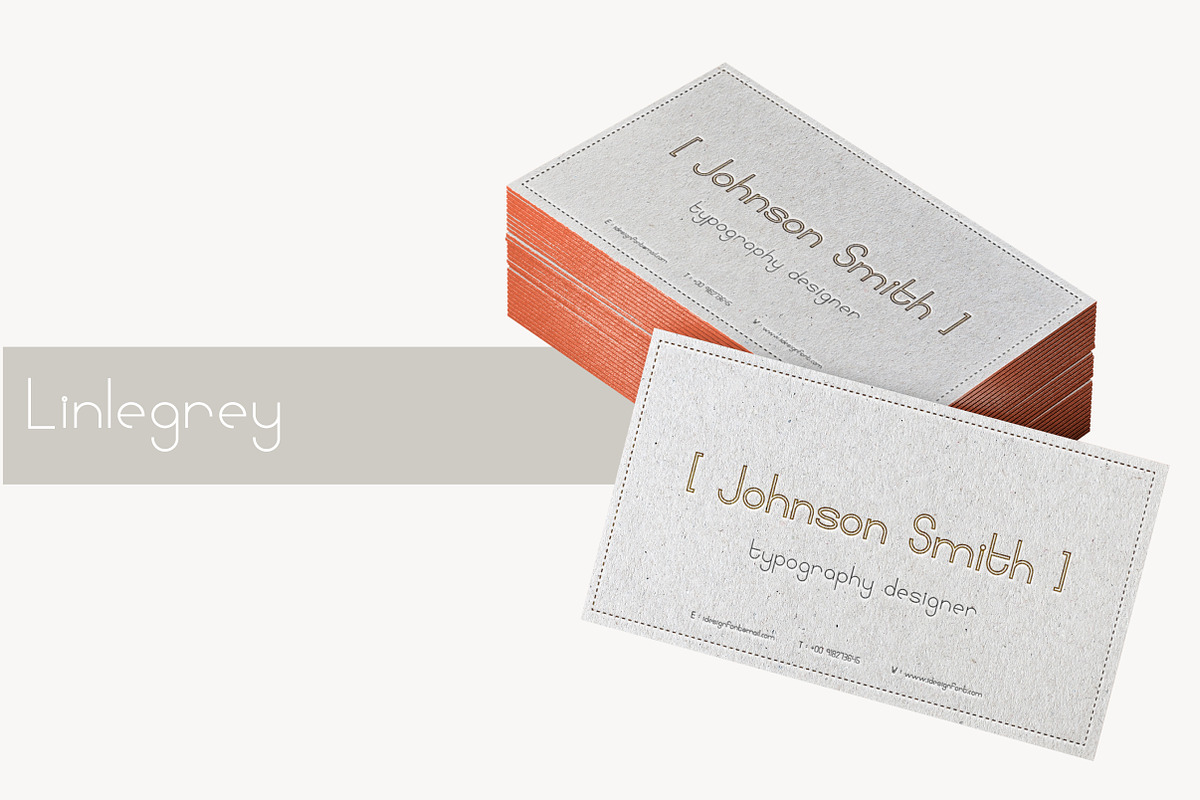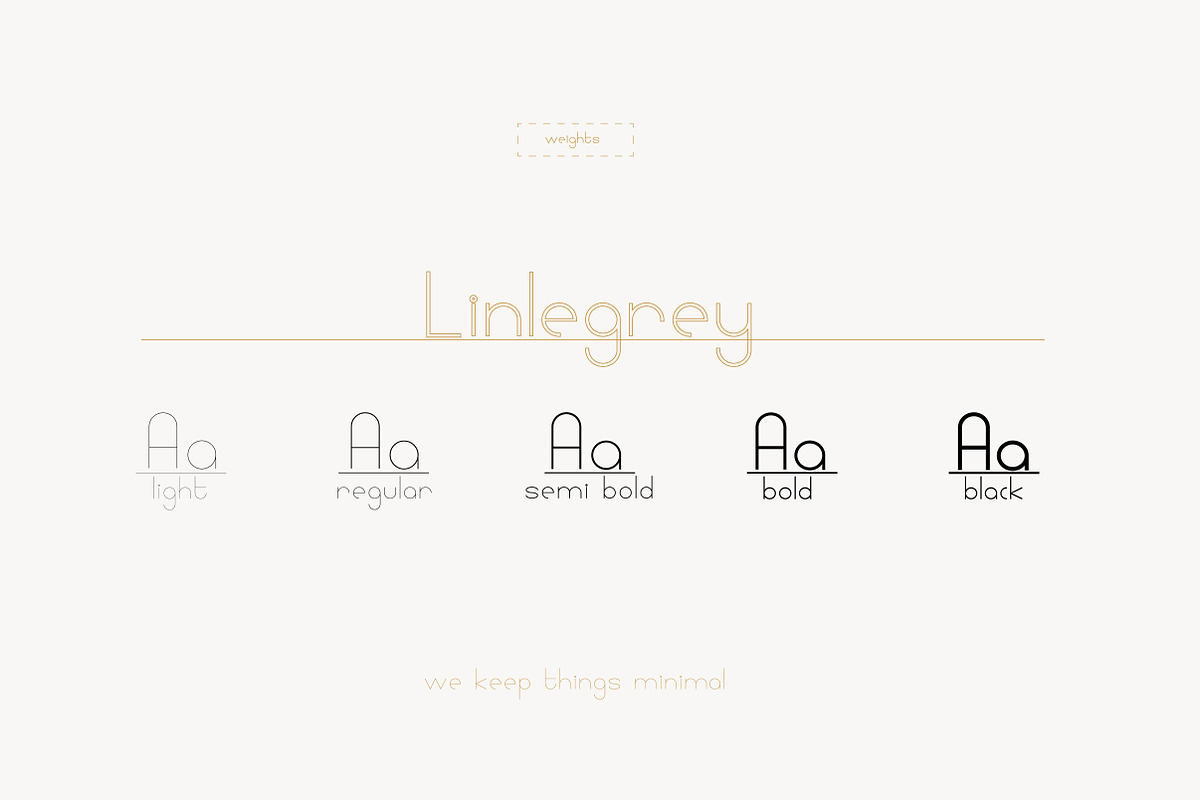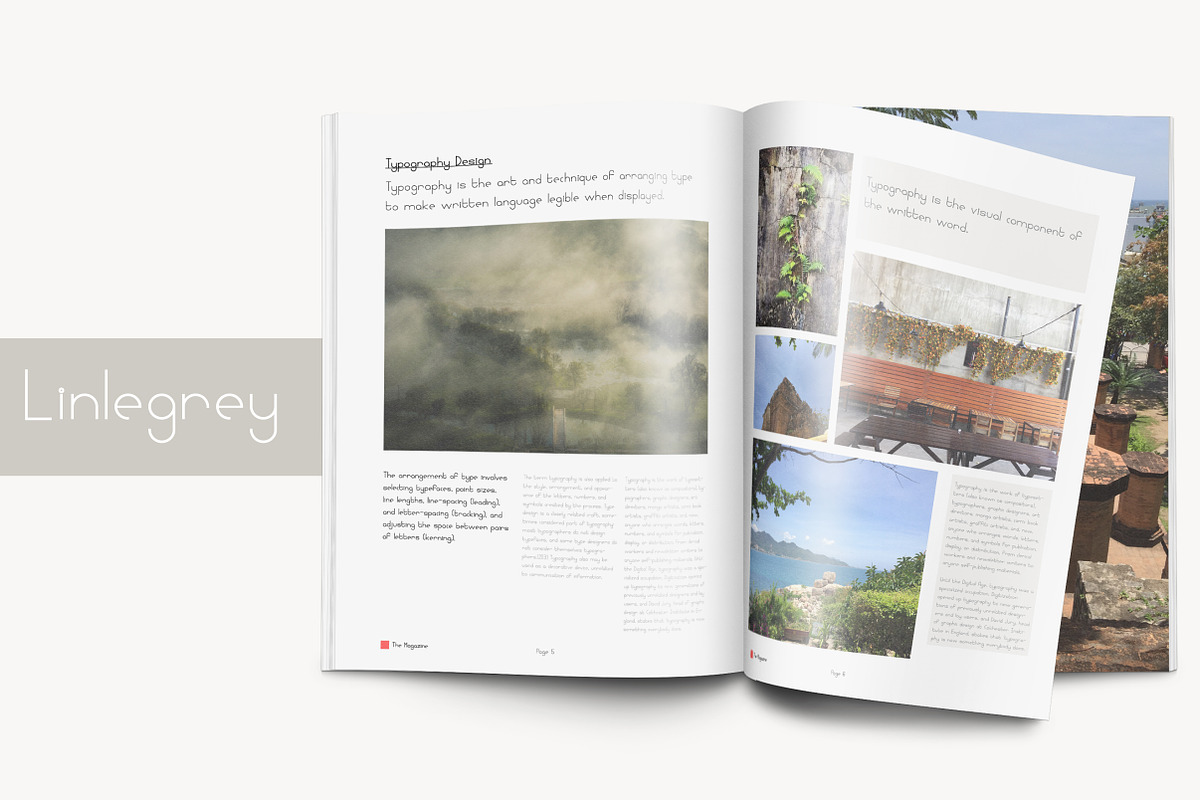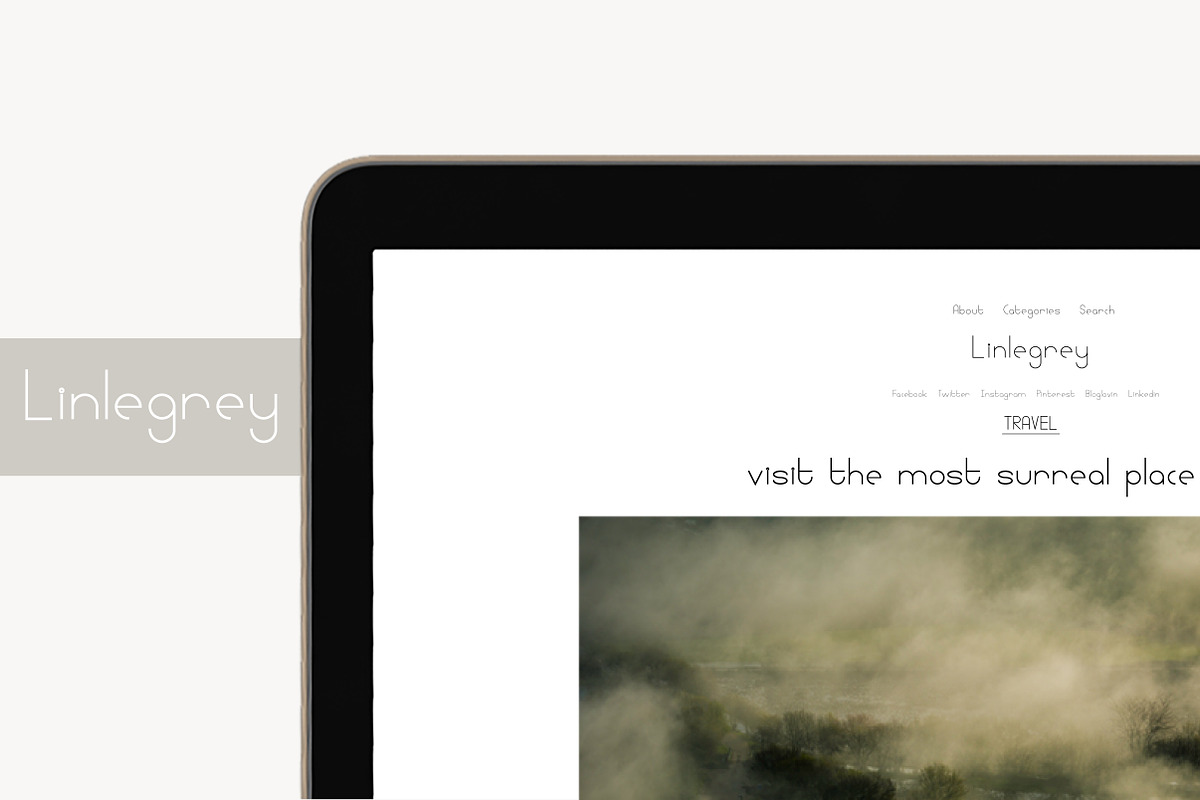
Linlegrey Full set | A Designer Font
Linlegrey Full set | A Designer Font by white supply is a font selected for branding, posters, packaging, typography.
Why Linlegrey Full set | A Designer Font is worth a look
Linlegrey Full set | A Designer Font by white supply fits naturally into Branding, posters, packaging, typography.